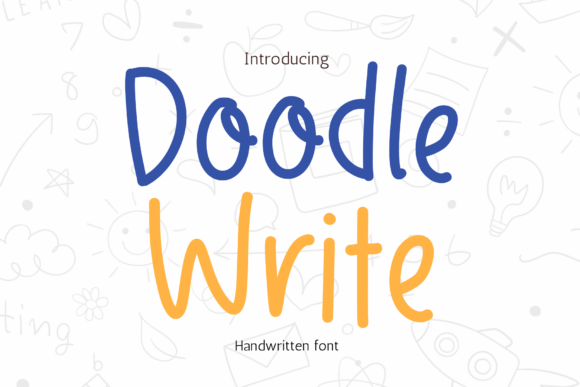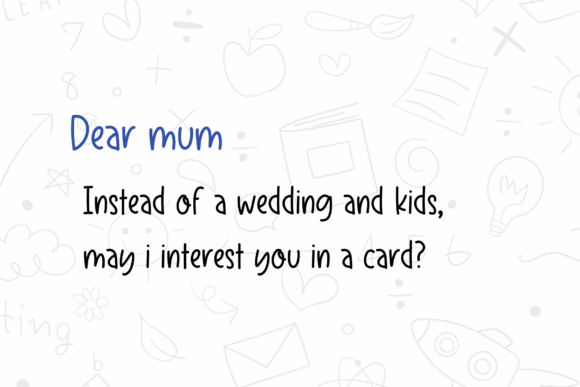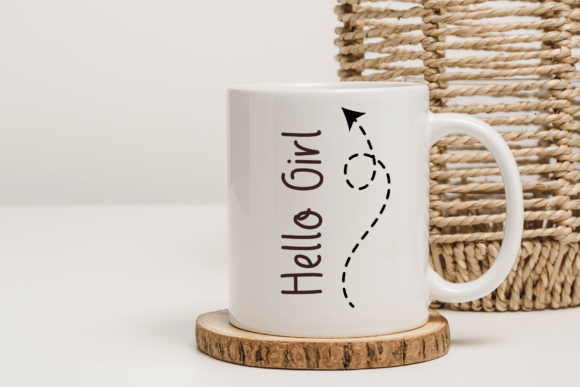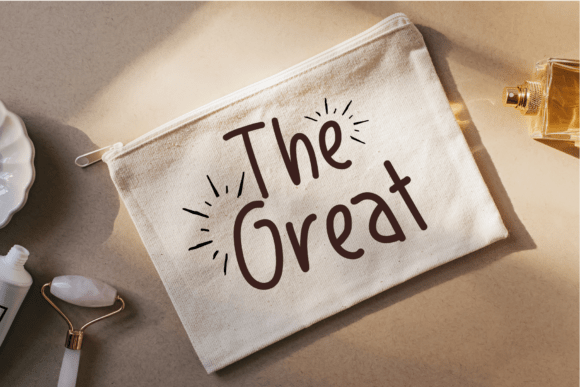
Doodle Write Font
About the Doodle Write Font
Step up your design game with Doodle Write Font, a font that exudes confidence and style. Doodle Write is a handwritten font. It embodies playfulness and authenticity and is the perfect choice for all your favorite projects, or even for blog posts, logos, branding, ads, invitations, greeting cards, planners, photo albums, decorations, and much more. Add it to any of your designs, and enjoy the results!
Doodle Write’s playful, authentic style shines in headlines, short-form content, and branding applications where a handwritten feel is desired. It works well for logos, social media graphics, and invitations, adding a personal touch. However, its informal nature makes it unsuitable for body text or UI elements requiring high readability.
For optimal pairings, consider a clean sans-serif like Open Sans for body text or a classic serif like Garamond for a sophisticated contrast. A geometric sans-serif such as Futura could also create a striking juxtaposition, balancing Doodle Write’s organic strokes with sharp, modern lines.
The overall personality is best described as friendly and approachable, making it ideal for brands focused on craft, children’s products, or small businesses seeking a handmade aesthetic.
Doodle Write Font Usage Examples
Doodle Write Font Example